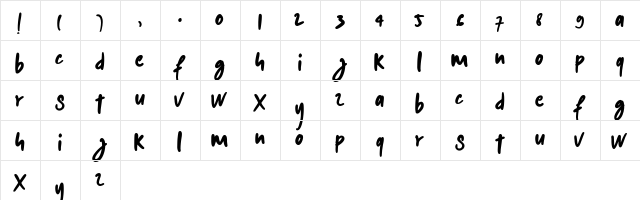
kalem Regular
Design Context for kalem Typeface
kalem is a composed and adaptable typeface that performs quietly and consistently across a wide range of design contexts.
Pro Tip: Use kalem in both headline and body roles to test its range before committing to a single application.